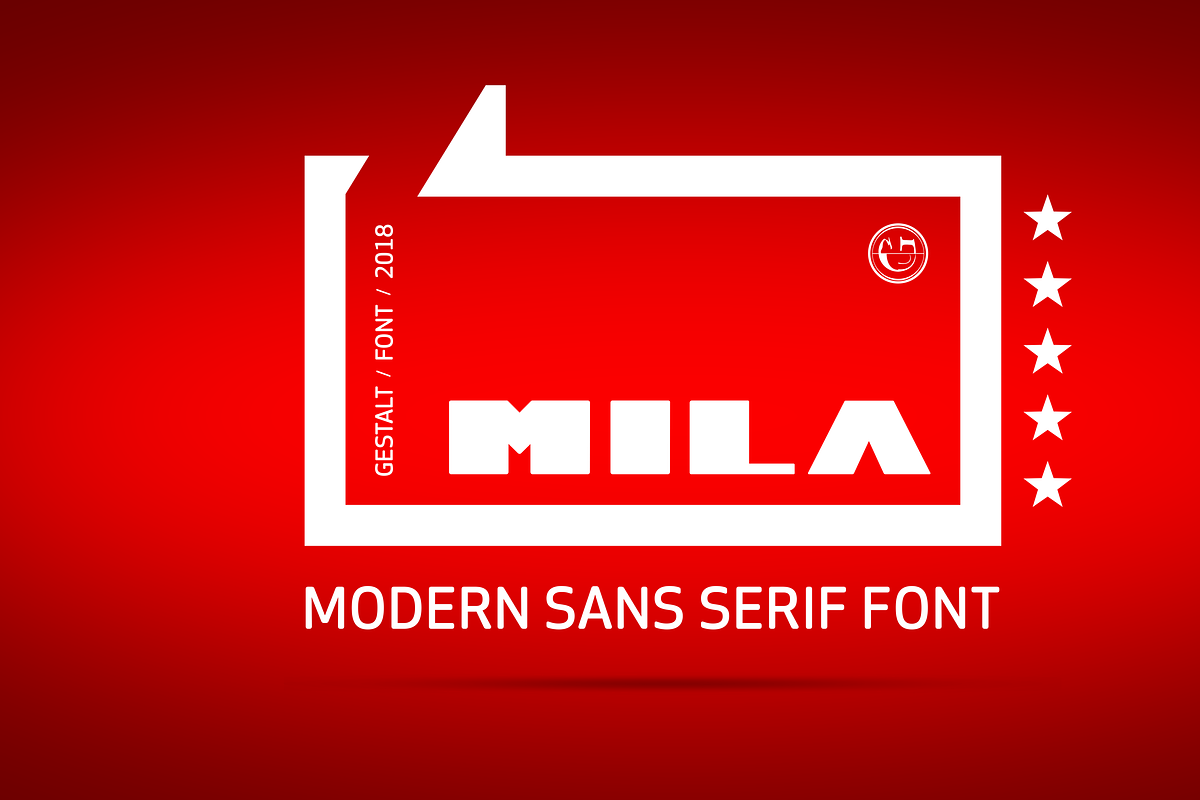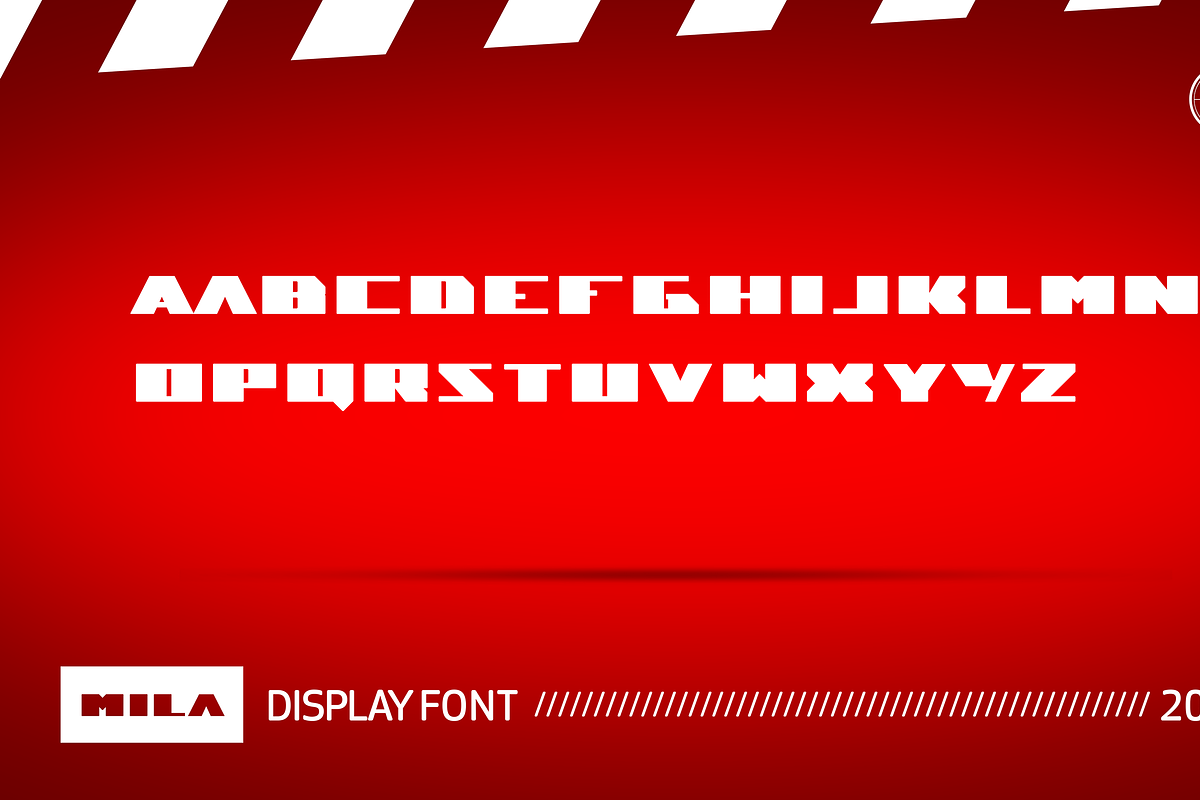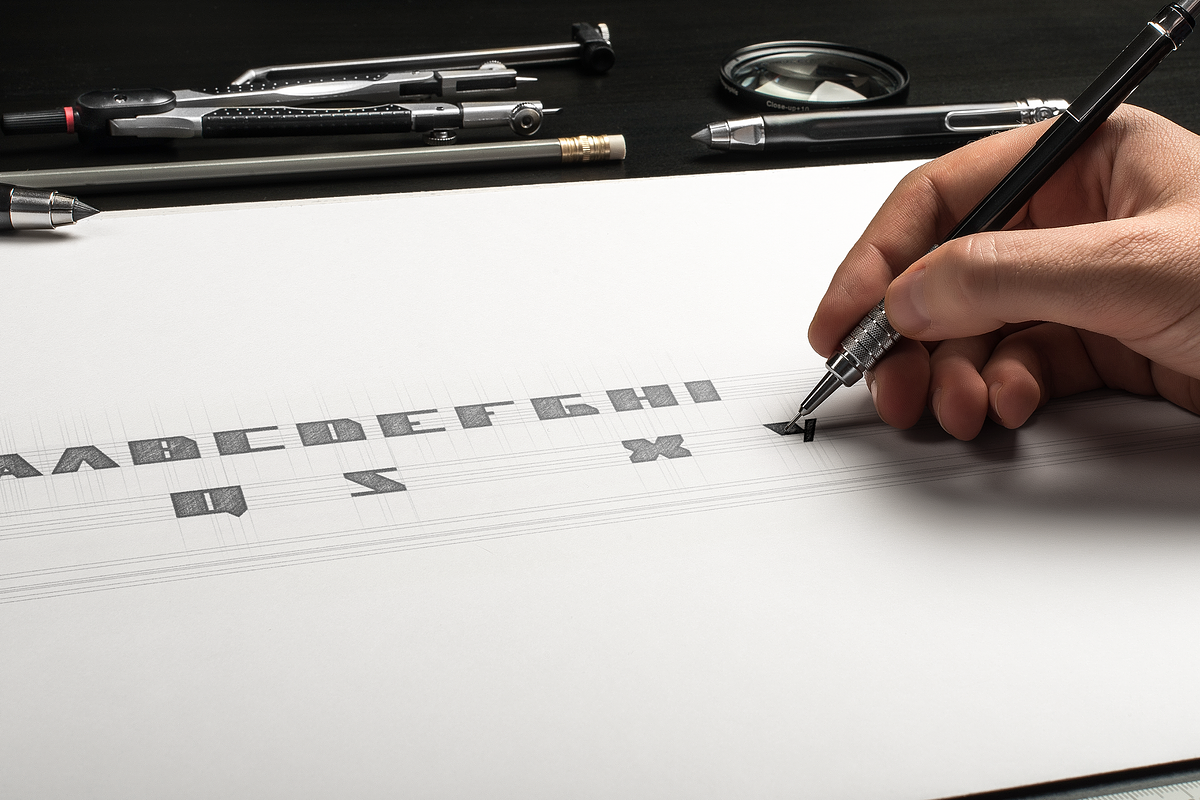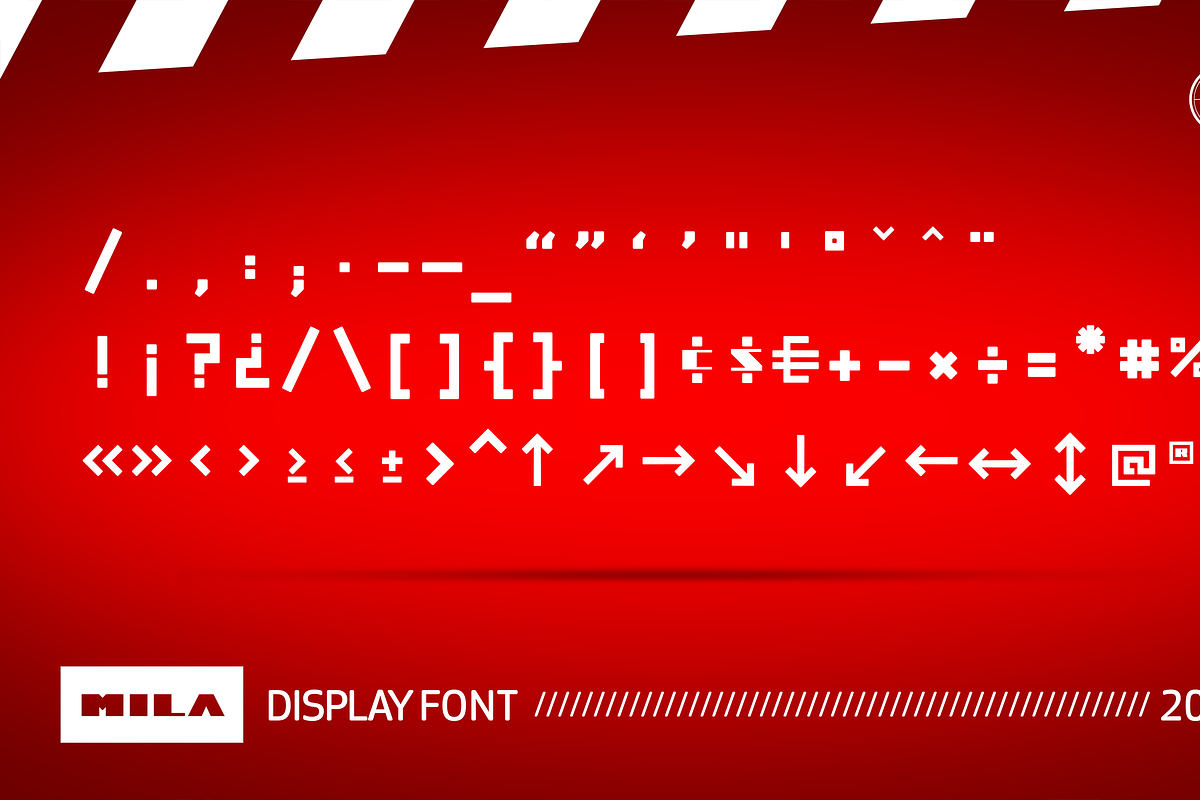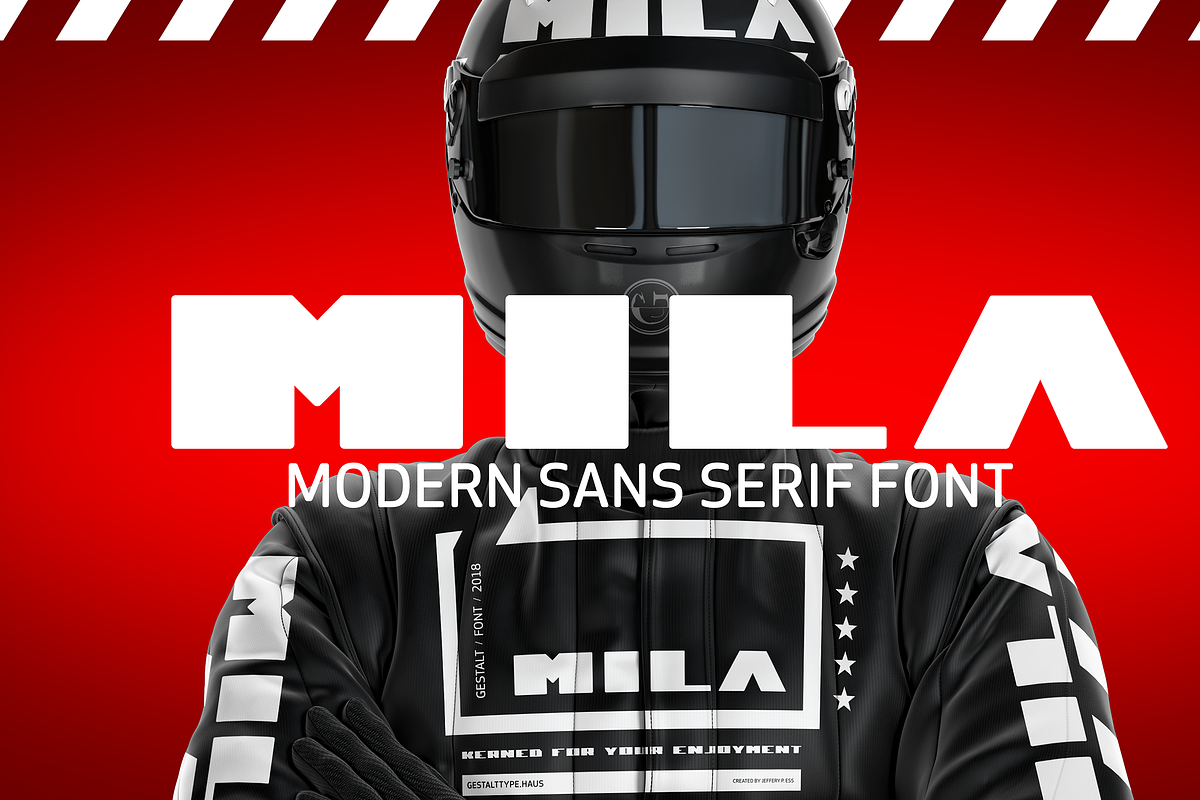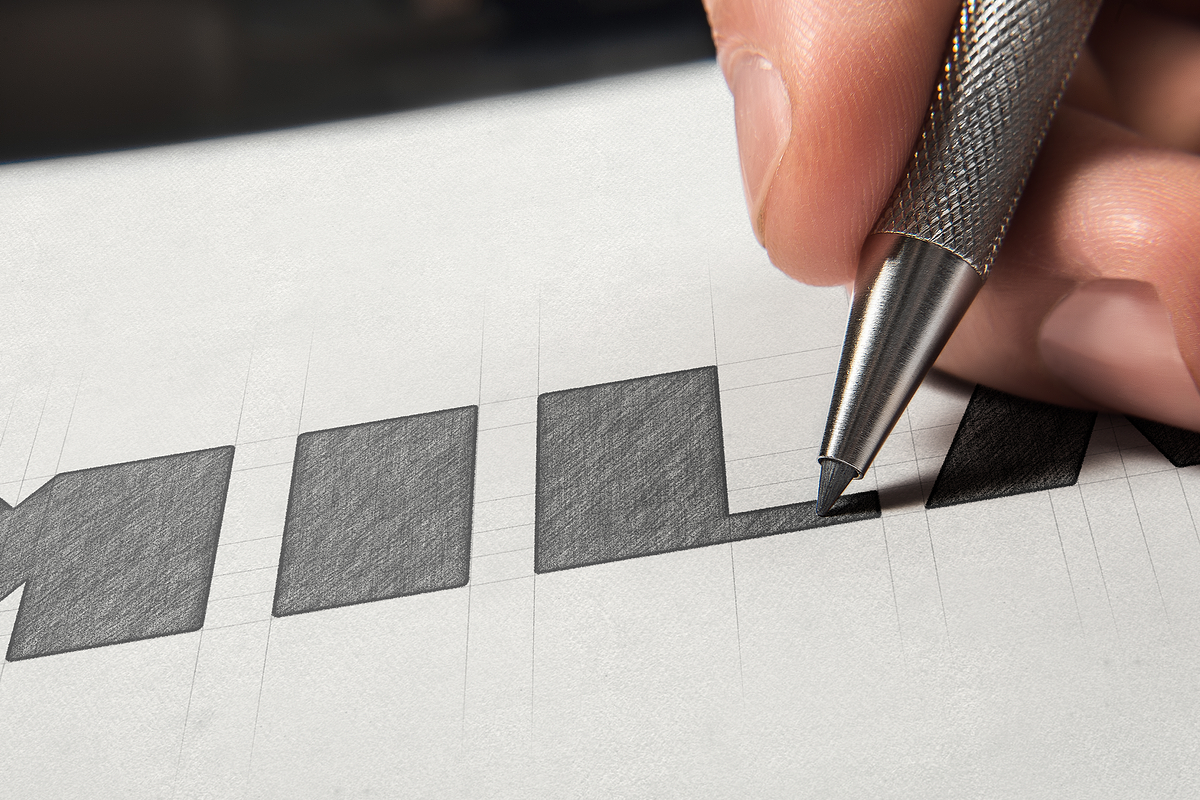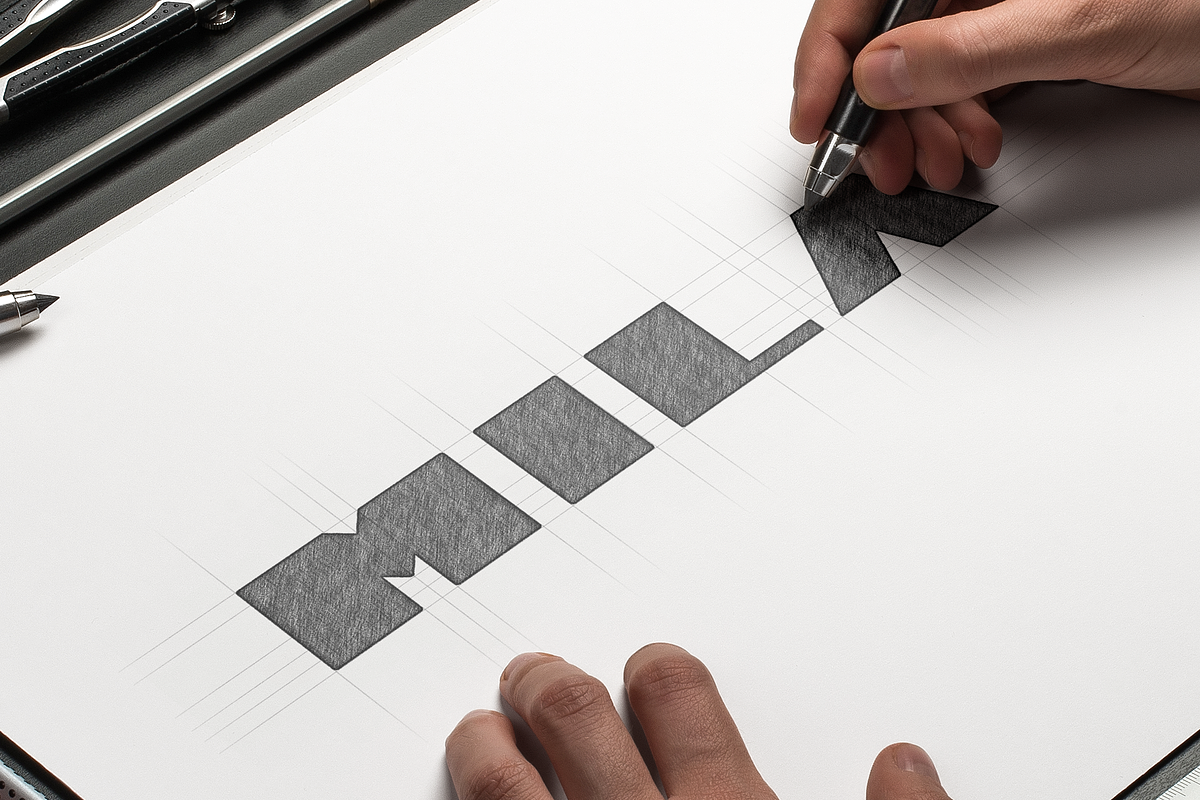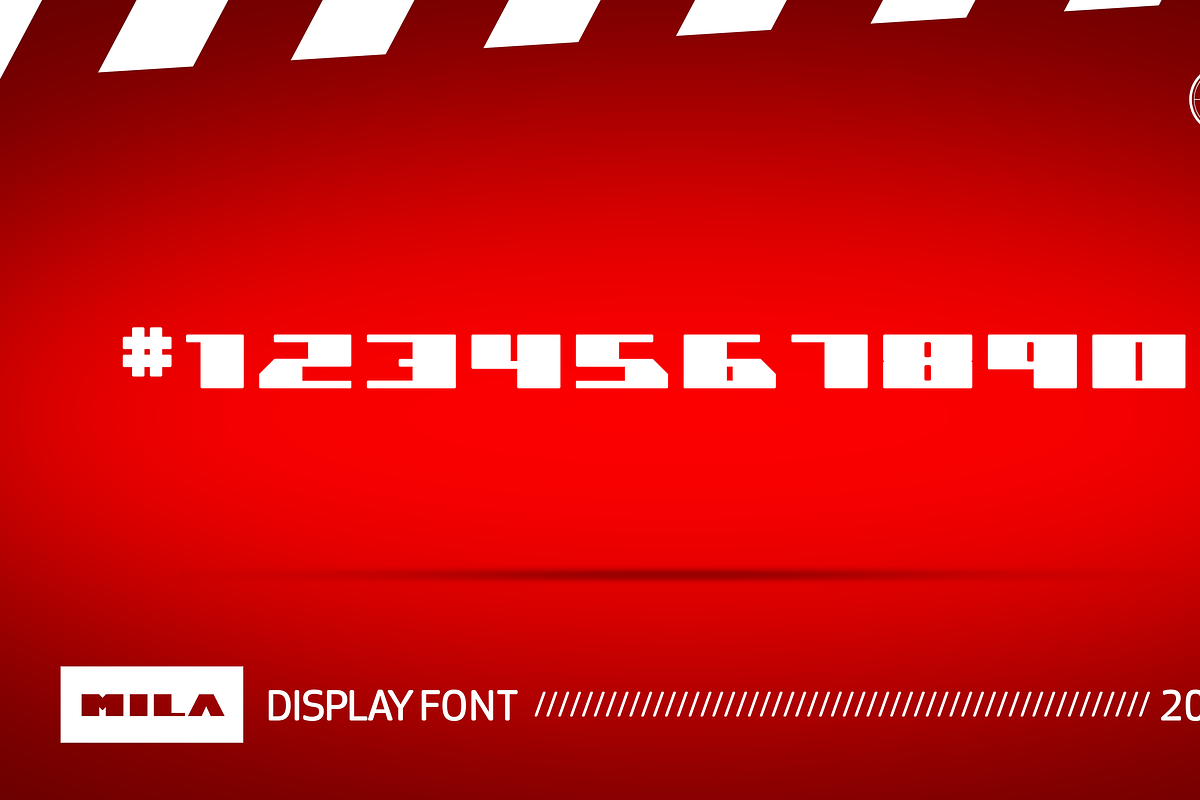
Mila San Serif By Jeffery P. Ess
MILA is a modern block-weight, Italian inspired, san serif typeface. Great for headlines, logotypes and clean sub headers. MILA is also fantastic for old vintage labels. Like a good cheese paired with wine. It has a lot of legs and it can be paired with a variety of type faces. It would look great with a script. a serif or even a slab serif. Fresh off the digital press. Be the first to feature it on your latest branding project.
Designed to be non-descript, but also not afraid to deliver impact when given the opportunity.
MILA was kerned for your enjoyment and designed by Jeff Ess of GESTALT.